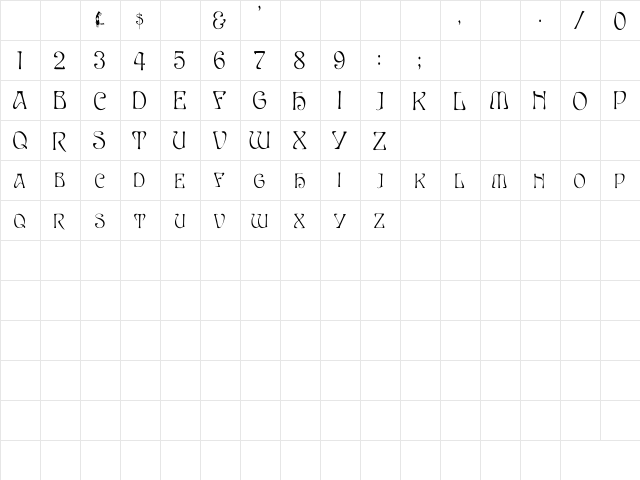
EddaCaps Cn Regular Font Preview
EddaCaps Cn Regular
Design Context for EddaCaps Cn Typeface
EddaCaps Cn is a composed and adaptable typeface that performs quietly and consistently across a wide range of design contexts.